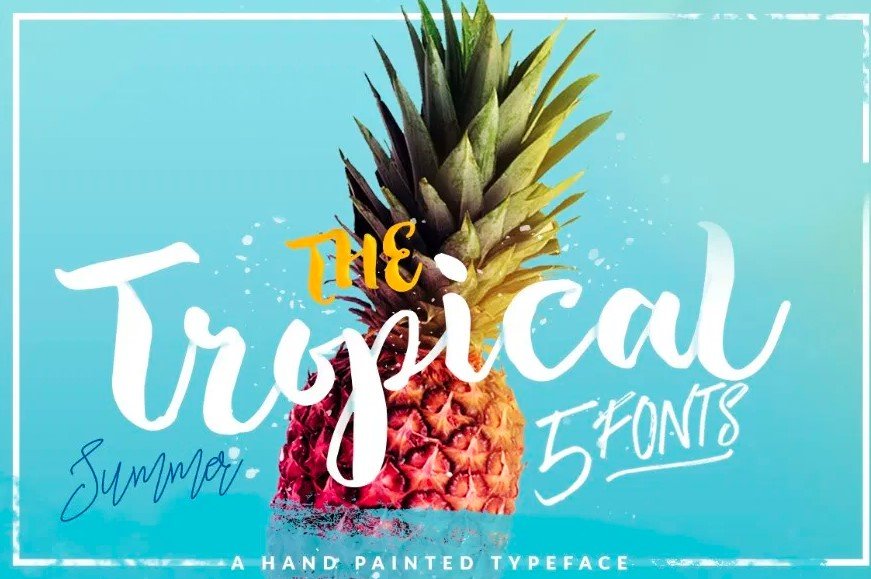
We are sharing the best tropical typeface that is The Tropical Brush Script Font which designed with the handle of brush and handmade character. This is fantastic font family that contains brilliant characters set and handcrafted fonts.
The font was designed and shared by the Dirtyline Studio which was the popular font fondry, It ahs so much awesome typographic designs which is the need of every professional and experienced graphic designer. This font can easily maintains the display of your project.
This unque and elegant font that looks like thunderstorm font which has a popular texture so that can also be used in pairing also. That’s why each designer treated it as a really perfect font in all appreciate.